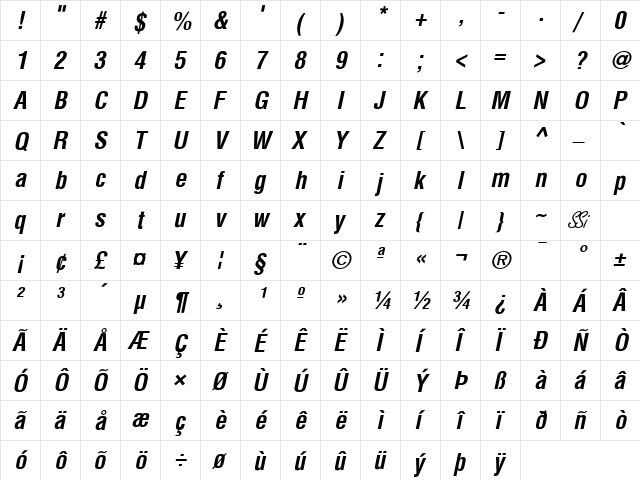
Context Condensed SSi Bold Condensed Italic Font Preview
Design Context for Context Condensed SSi Typeface
Context Condensed SSi offers clean, dependable letterforms without strong stylistic allegiance, making it a practical choice for designers who need flexibility. The dynamic lean of this cut emphasises speed and emphasis in any layout. Its bold stroke weight gives it real presence on the page. Its narrow stance lets it pack a punch even in space-constrained designs.
Pro Tip: Try Context Condensed SSi for annotation and caption copy alongside an upright companion — the contrast in angle creates a dynamic but ordered typographic system.